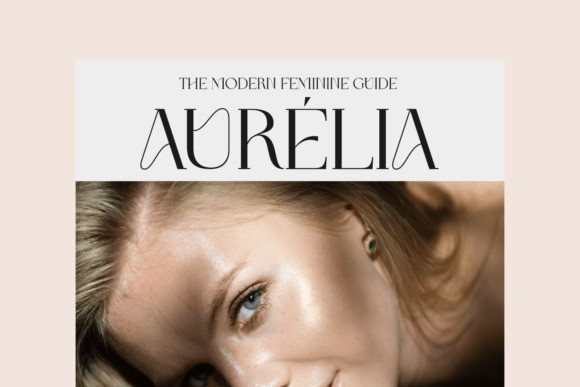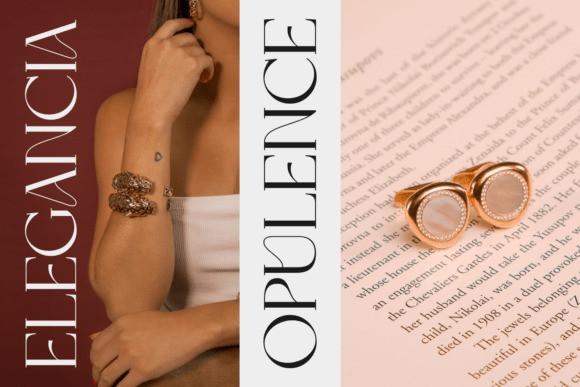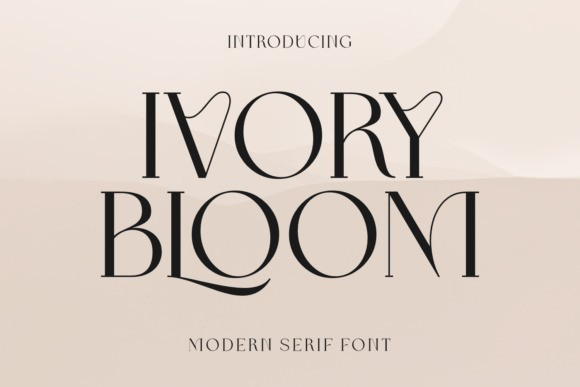
Ivory Bloom Font
Ivory Bloom Font, a modern serif font. The font itself is a high-contrast serif with unique, stylized letterforms and swashes that have a delicate, floral quality, perfectly matching its name.